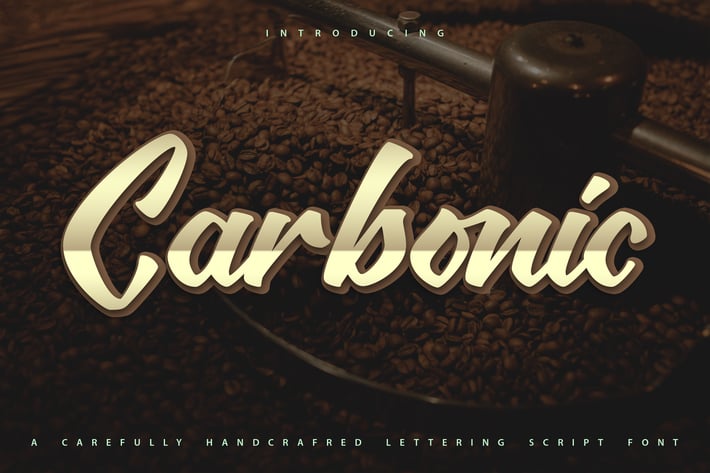
Carbonic | Handcrafted Lettering Script Font
REVIN with a calligraphy style, So beautiful on invitation like greeting cards, branding materials, business cards, quotes, posters, and more!